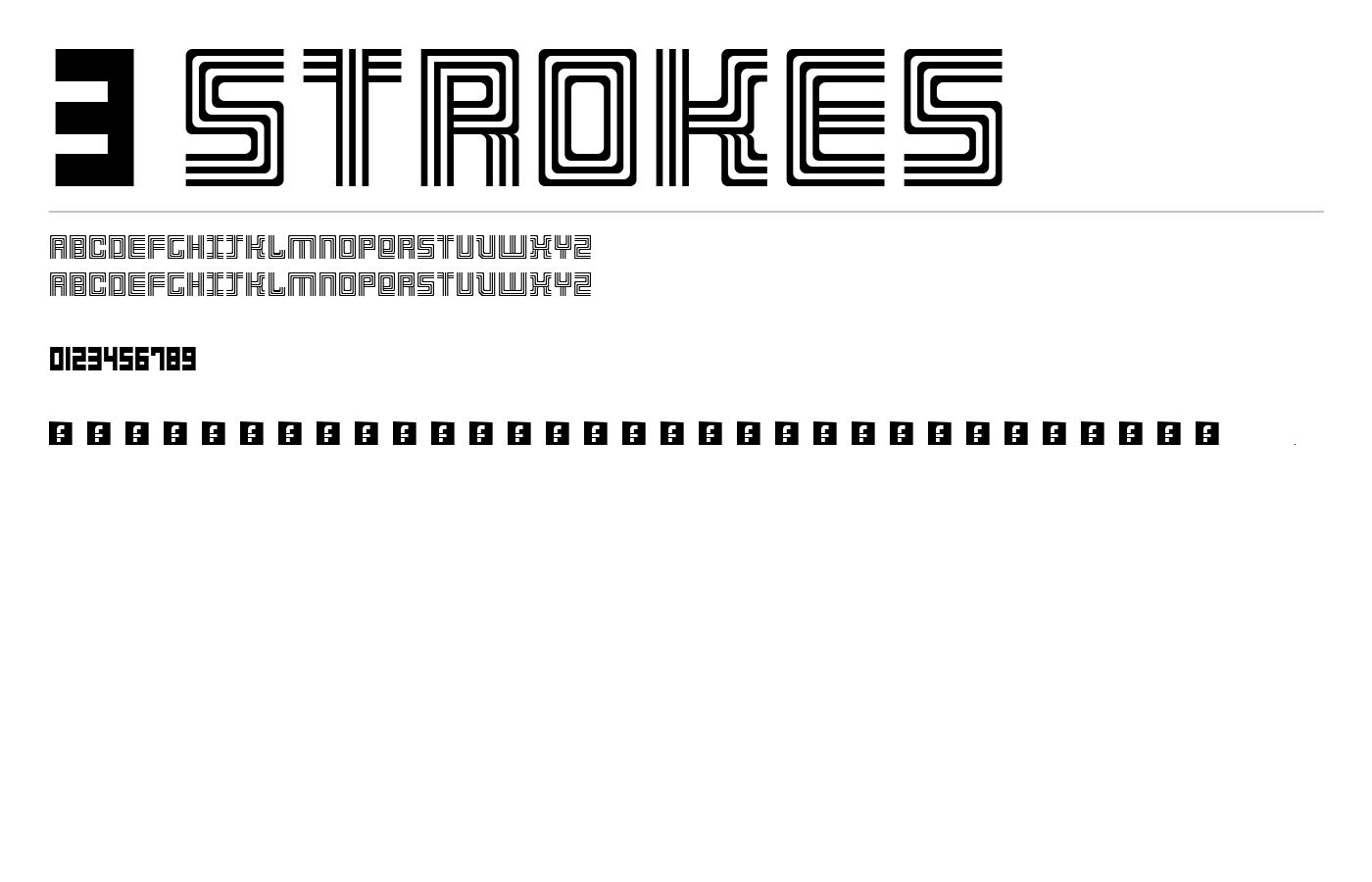
3 Strokes is a modern, geometric display font characterized by its clean, triple-line construction that creates a unique, futuristic aesthetic. Its condensed letterforms and consistent stroke width give it an edgy, technical feel perfect for eye-catching headlines, logos, and branding in technology or creative industries. This font works best in large sizes and minimalist designs where its distinct style can stand out and add a stylish, innovative touch.
3 Strokes Font